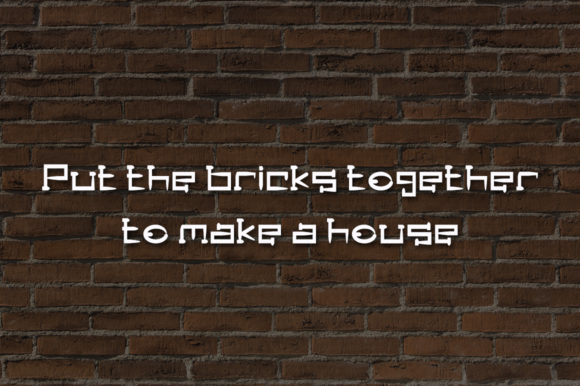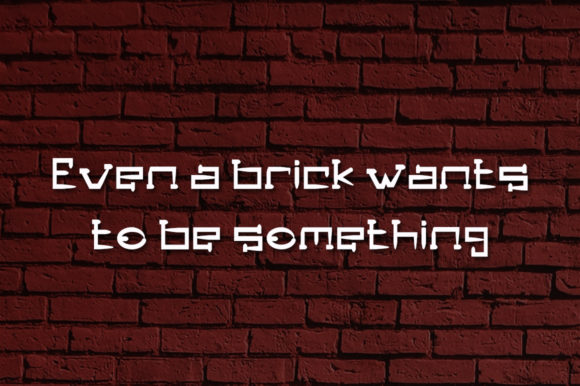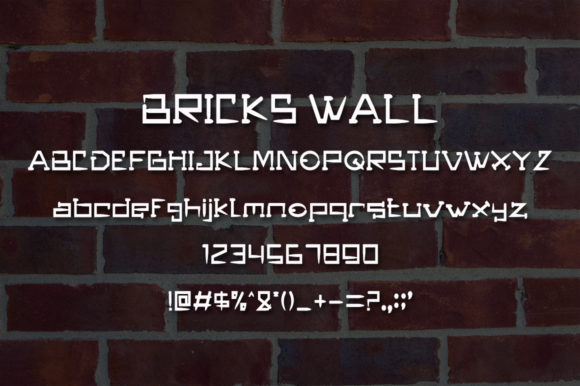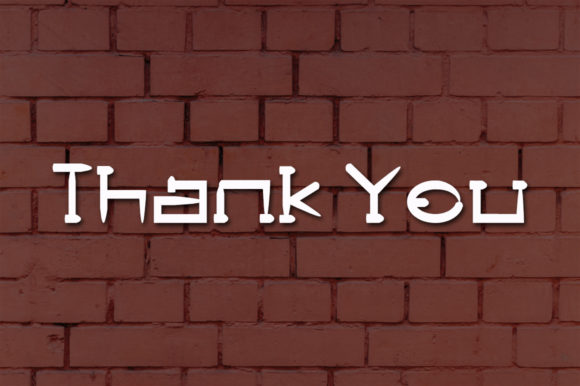
Bricks Wall Font
About Bricks Wall Font
Bricks Wall is a casual handwritten font. Use it to make your ideas even more realistic and create spectacular designs!